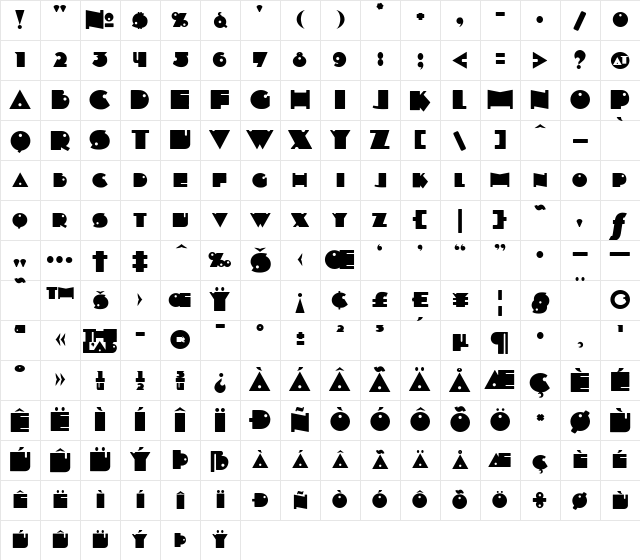
Independant - Small Caps Regular
Design Context for Independant - Small Caps
Independant - Small Caps is a composed and adaptable typeface that performs quietly and consistently across a wide range of design contexts.
Pro Tip: Use Independant - Small Caps in both headline and body roles to test its range before committing to a single application.